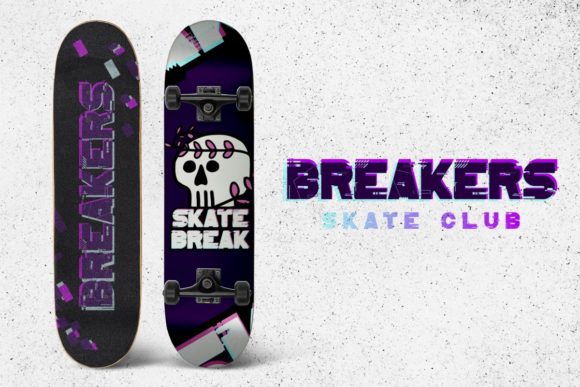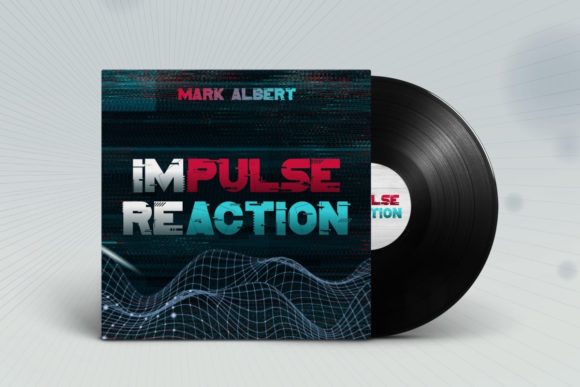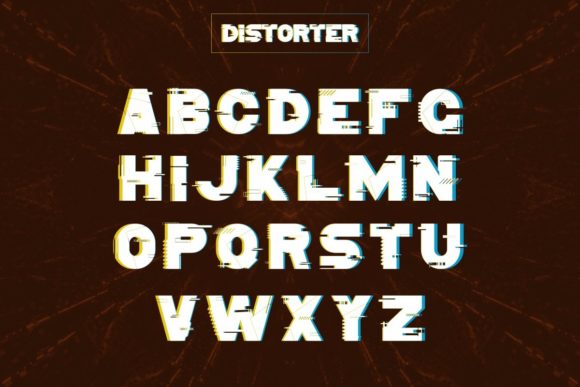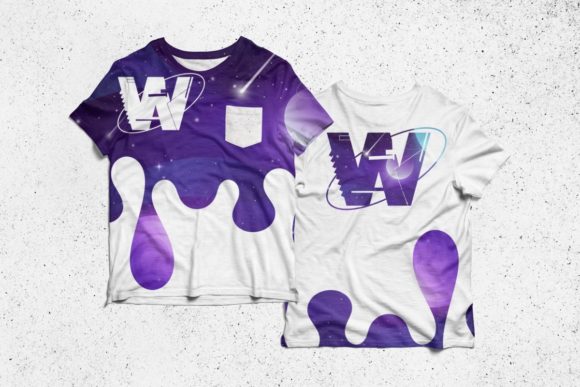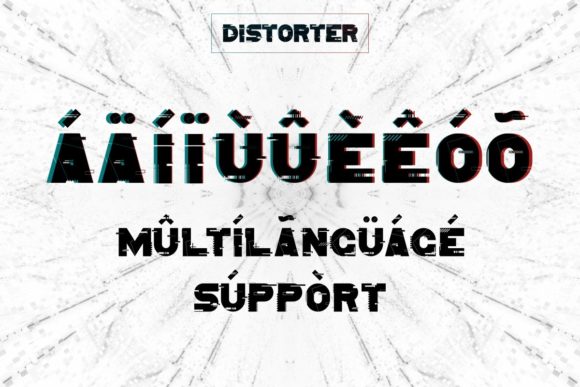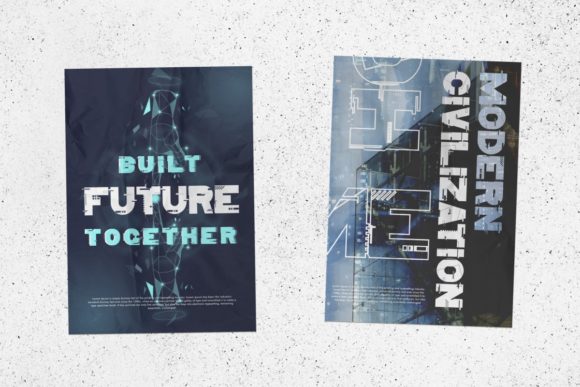
The Distorter Font: A Game-Changer for Designers
I’ll never forget the time I was working on a project for a fashion brand, and I just couldn’t find the right font to bring their vision to life. The client wanted something bold, modern, and eye-catching, but everything I tried seemed to fall flat. That’s when I stumbled upon the Distorter font, and let me tell you, it was a total game-changer! 💥
What is Distorter Font?
Distorter is a distorted display font that’s perfect for designers, crafters, and creative hobbyists looking to add a unique touch to their work. Its bold and modern style makes it an excellent choice for a wide range of projects, from fashion and food to games and music.
Honest Review
- ✨ Bold and modern style that’s sure to turn heads
- ✅ Highly versatile and can be used for various design projects
- 💥 Perfect for creating eye-catching titles, posters, and signage
- 🎉 Easy to read, even in large sizes
While Distorter is an amazing font, there are a few things to keep in mind:
- 🤔 May not be the best choice for body text or small font sizes
- ⚠️ Some characters may not work well in combination with others
The story behind Distorter is a fascinating one. According to the designer, the font was inspired by the world of graffiti and street art. The goal was to create a font that would stand out in a crowded design landscape, while still being easy to read and understand.
Q: What is the best way to use Distorter font?
A: Distorter is perfect for titles, posters, signage, and any other design project that requires a bold, eye-catching font.